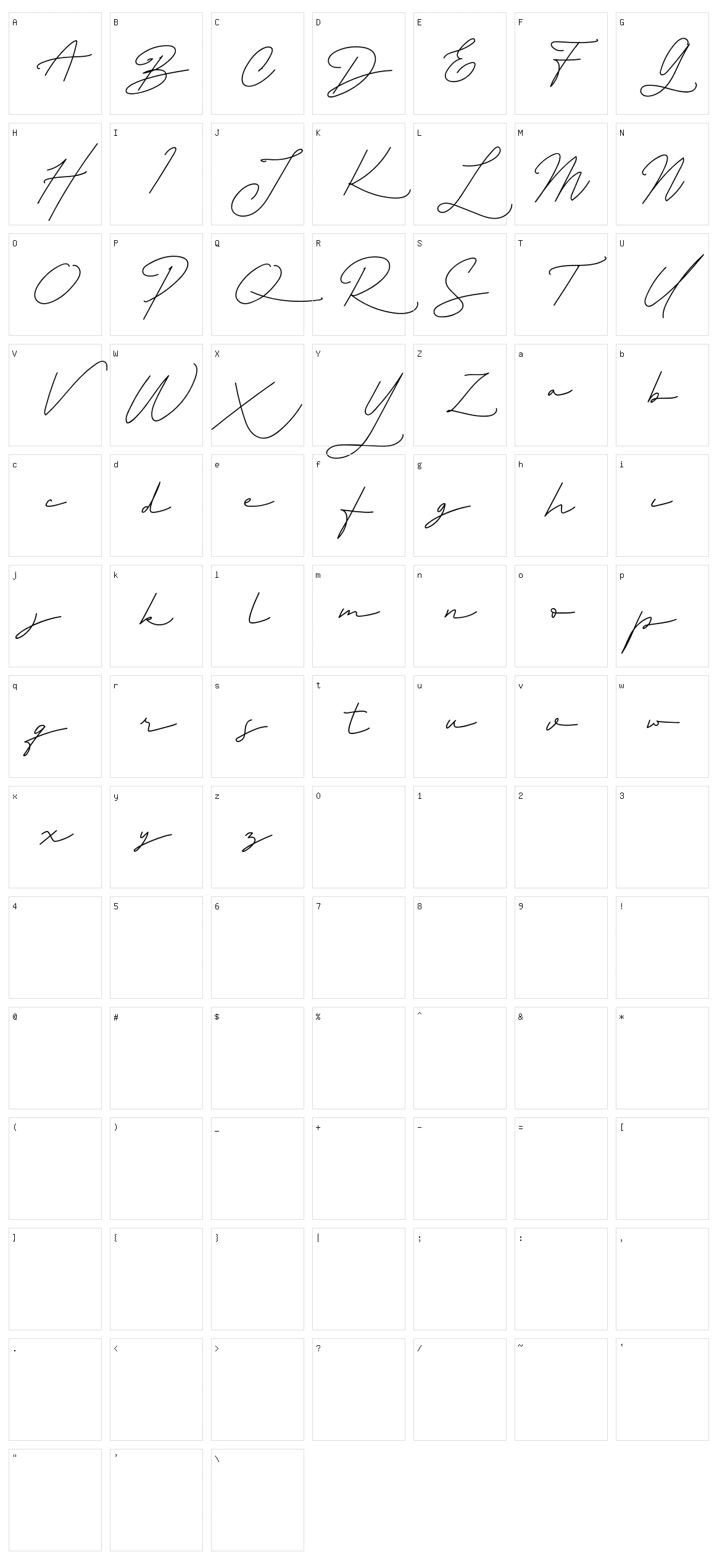
The free font Raimond is carefully designed by InspiraType, showcasing a thoughtful balance of creativity and usability and falls under the Script font style. When you download the ZIP file, it contains only 42.64 KB of font files, making it lightweight and quick to download. Please review the license details below to understand permitted usage and distribution rights. If license information is not available, we recommend using this font for personal projects only or contacting the author directly for commercial usage permissions.